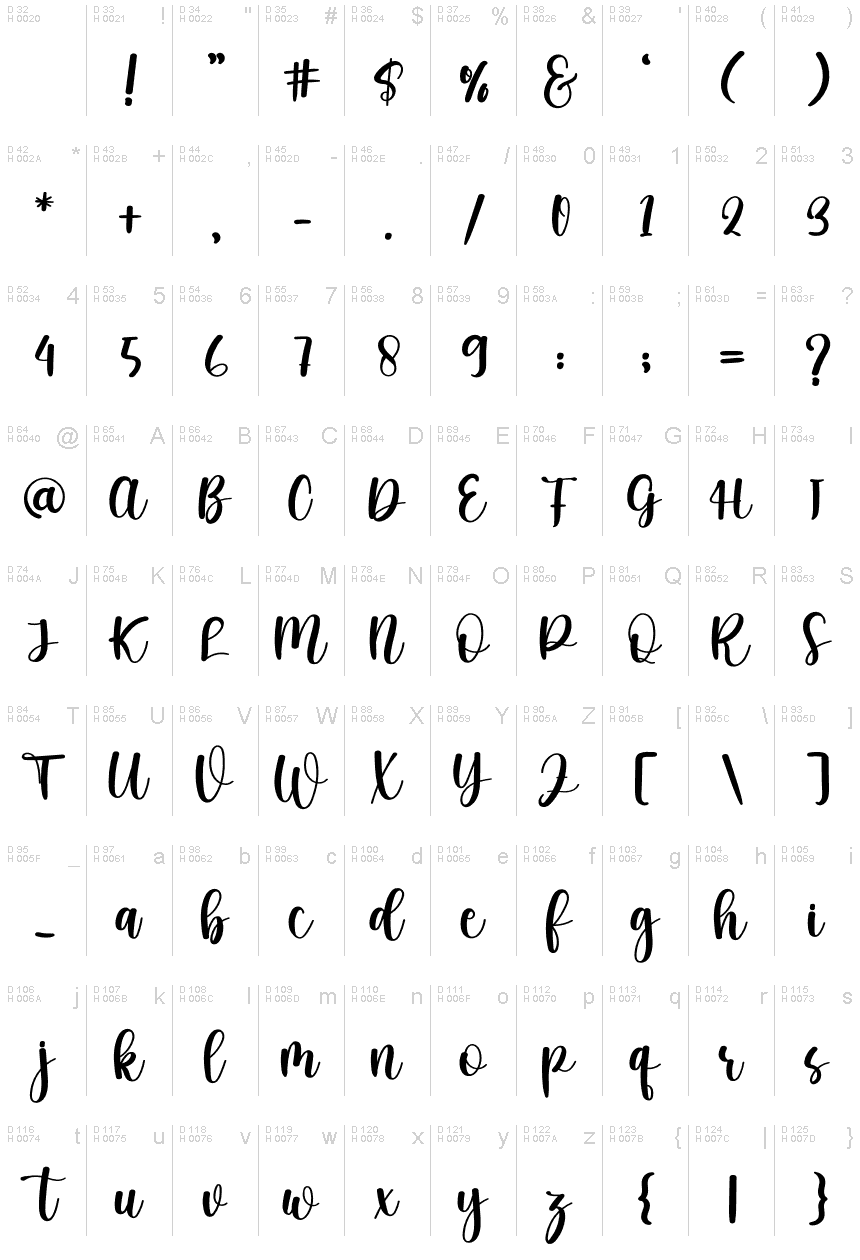
Starlight
Introduce your design projects to the world with Starlight, a calligraphy font created by Inermedia Studio. This font is perfect for creating unique logos, invitations, and social media posts.